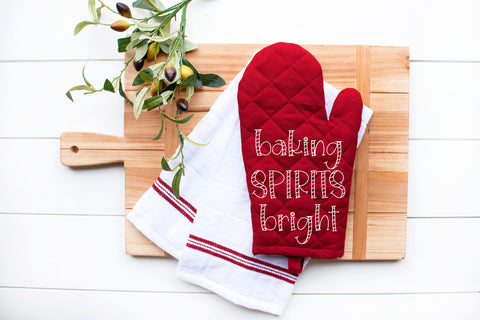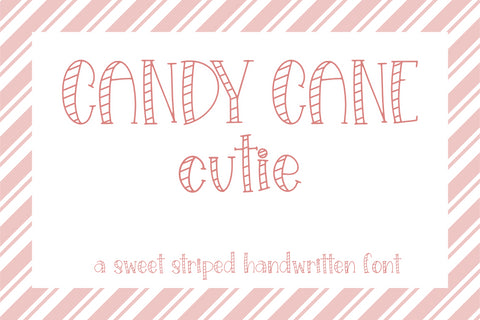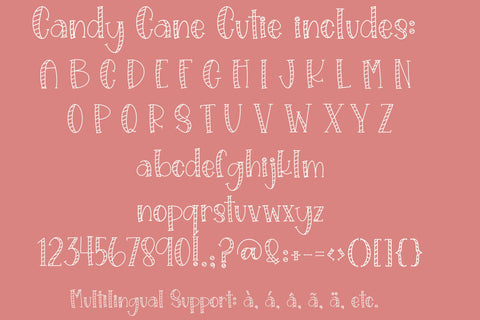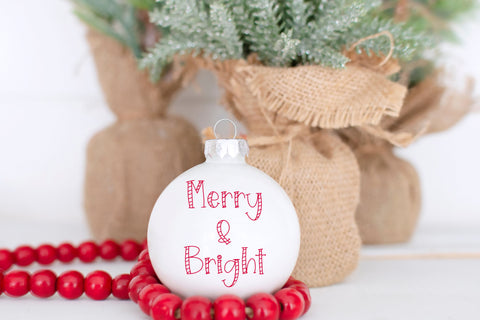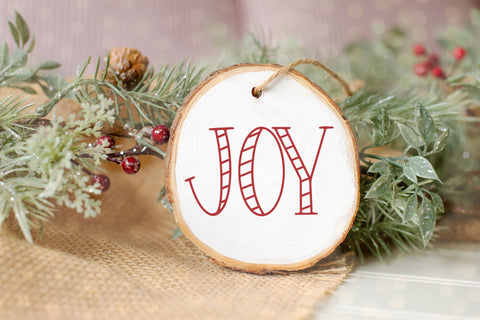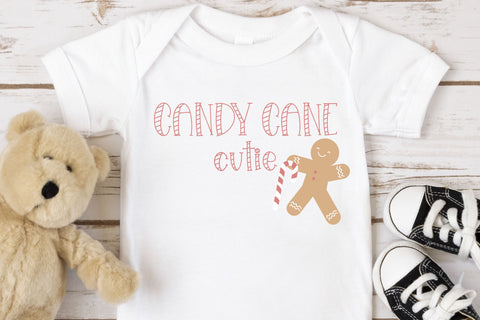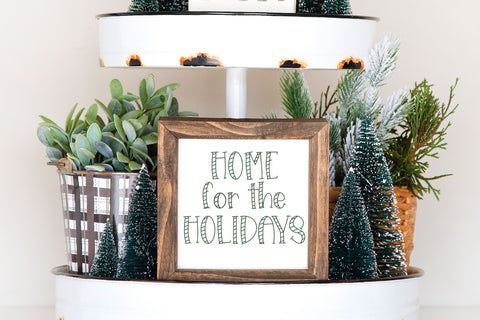
Candy Cane Cutie, Sweet Striped Handwritten Font
Introducing Candy Cane Cutie, our sweet, striped handwritten font, perfect for all your creative projects! This unique font is perfect for all your Cricut designs, making it a must-have for craft enthusiasts. With its playful and fun handwriting style, it adds a touch of whimsy and personality to any project. Whether you're crafting cards, scrapbooking, or designing SVG files, this cute striped Christmas font will bring your creations to life. Get ready to impress with our amazing Cricut font collection and unlock endless possibilities for your artistic endeavors!